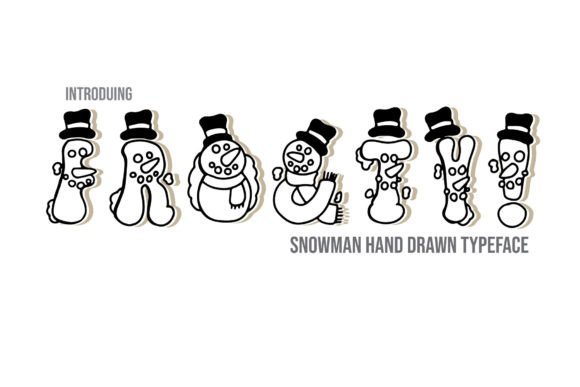
Get Ready to Chill with Frosty! Font
Have you ever found yourself scrolling through design inspiration boards, and suddenly, a font catches your eye? For me, it was a festive holiday project that sparked the idea to dig deeper into the world of unique decorative fonts. That’s when I stumbled upon Frosty! Font – a delightful, winter wonderland-inspired typeface that screams “Christmas magic”!
Frosty! Font is a charming, one-of-a-kind decorative font designed to add a touch of whimsy and cheer to your design projects. Whether you’re creating a holiday card, a festive social media post, or a Christmas-themed website, this font is the perfect companion to bring your ideas to life. Its value lies in its versatility, making it a valuable addition to any designer’s toolkit.
Frosty! Font Key Features
- Character Count: The font features a vast character set, including uppercase and lowercase letters, numbers, punctuation marks, and a variety of special characters.
- Size and Resolution: Frosty! Font is designed to work well at various sizes and resolutions, from small text to large headlines, making it suitable for a range of applications.
- Unique Characteristics: The font’s distinctive frosty design, with intricate patterns and subtle textures, adds a touch of elegance and sophistication to any text.
- Legibility: Frosty! Font is carefully crafted for optimal legibility, ensuring that the text remains clear and easy to read even at small sizes.
- Multi-Lingual Support: The font supports multiple languages, making it an ideal choice for global applications and publications.
Frosty! Font Review
As a designer, I was excited to dive into the Frosty! Font and see what it had to offer. Overall, I was impressed with the unique and playful feel it brings to any project. ✨ The font is perfect for winter-themed projects or anything that needs a touch of frosty magic.
Here are some of the things that worked well for me:
- ✨ The bold and italic weights are great for adding emphasis and creating contrast.
- ✨ The font is highly customizable, allowing me to adjust the spacing and line height to fit my design needs.
- ✨ The font is well-suited for digital and print projects, making it a great addition to any designer’s toolkit.
- ⚠️ The font is not as versatile as some other fonts, and may not be suitable for projects that require a more formal tone.
- ⚠️ Some of the characters may not display properly in certain font sizes or styles, which can be a bit frustrating.
Overall, I think Frosty! Font is a great choice for designers who want to add a touch of whimsy and fun to their projects. While it may have some limitations, the unique feel and customization options make it a valuable addition to any designer’s toolkit.